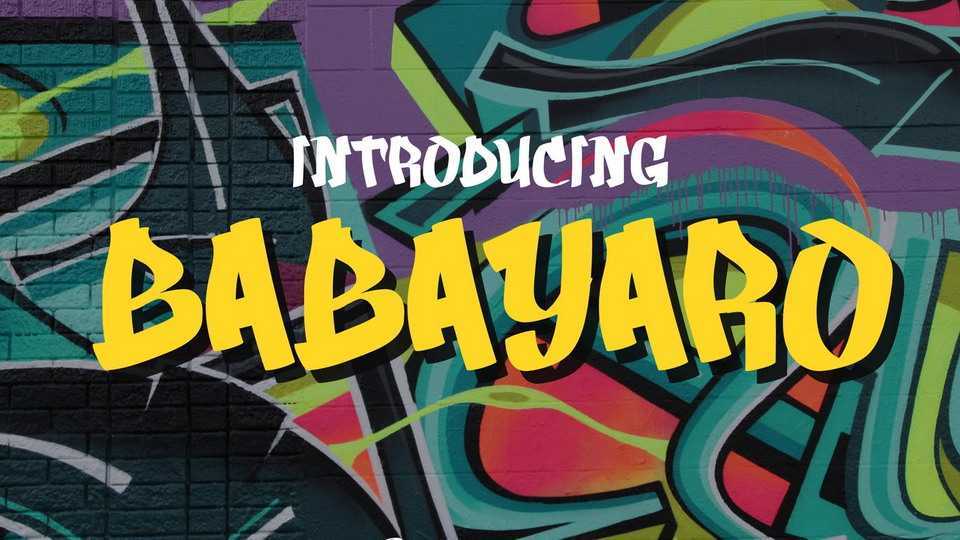
Download Babayaro font, a graffiti typeface. Babayaro suits perfectly for hip-hop, rebellious and extreme sport segmented magazine, poster, movie title, music poster and so on